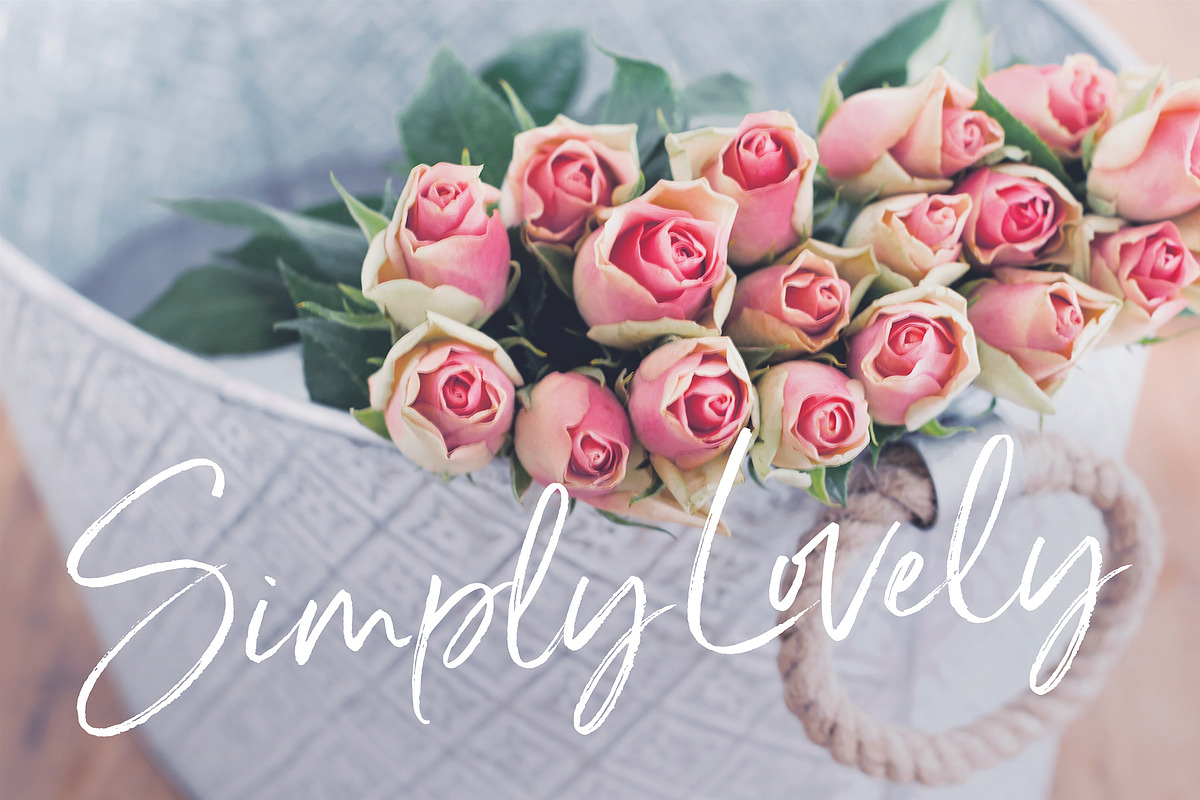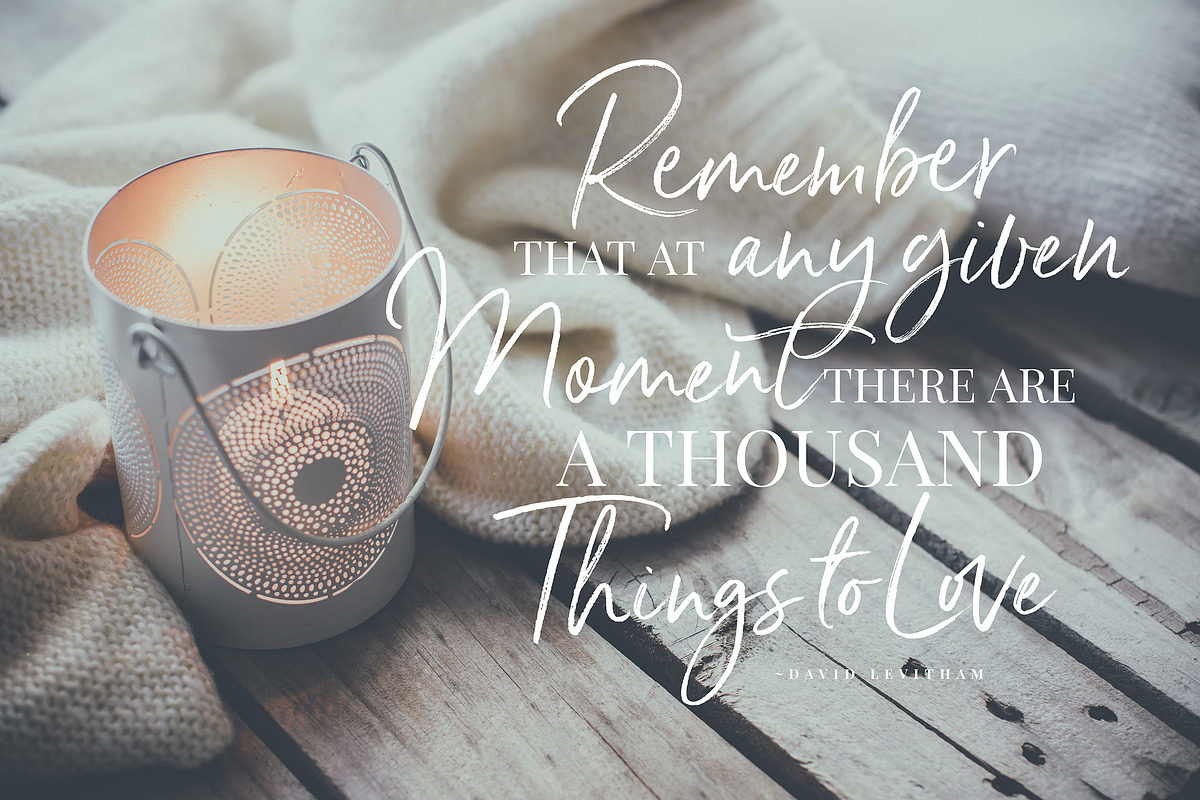
Serendipity Handwritten Font
Serendipity Handwritten Font by Nicky Laatz is a font selected for branding, posters, packaging, typography.
- It comes with 2 sets of alternate lowercase letters, a set of alternate uppercase letters as well as a set of double letter ligatures - all
Why Serendipity Handwritten Font is worth a look
Serendipity Handwritten Font by Nicky Laatz fits naturally into Branding, posters, packaging, typography.